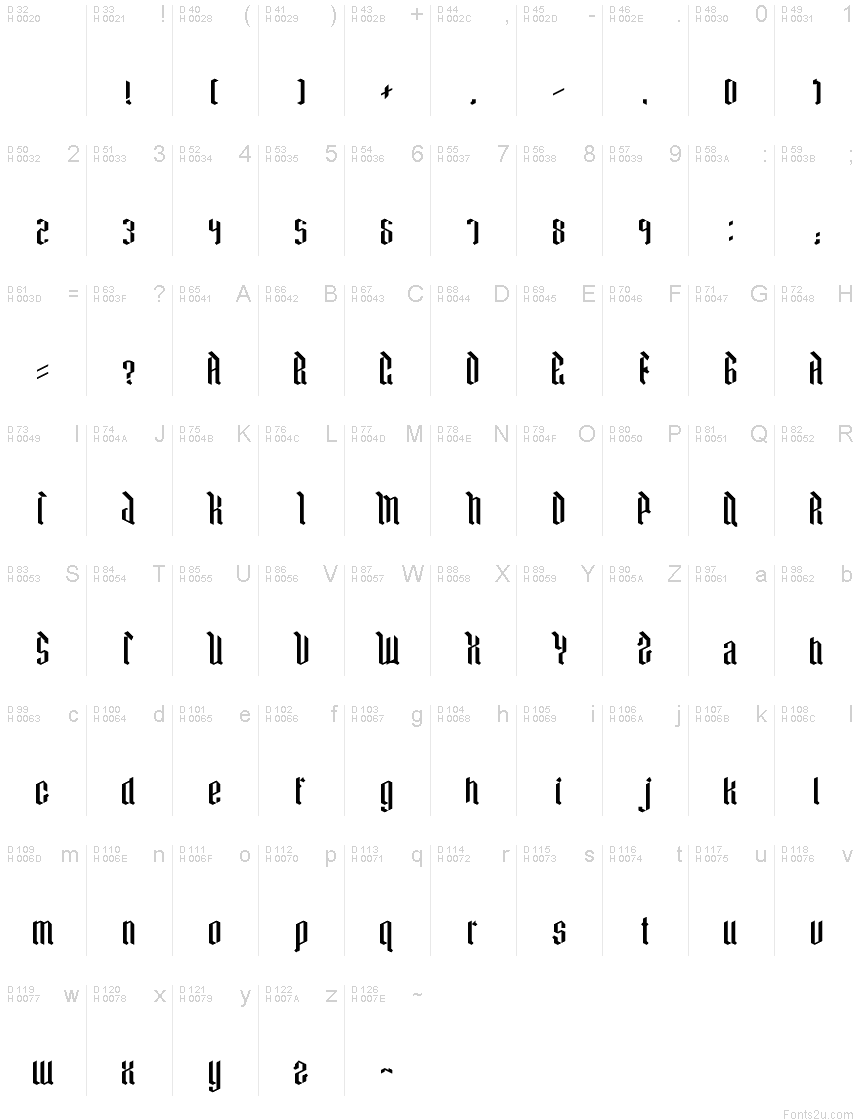
Corregidora Dominguez by rivaszarate of FSI FontShop International GmbH is a free medieval blackletter font with a severe, cut-paper silhouette. Narrow letters, sharp diagonal breaks, and alternating broad and hairline strokes give the design the look of hand-built Gothic lettering.
Historical and dark fantasy subjects suit book covers, game graphics, and event posters. Its angular forms can echo heraldic emblems, castle silhouettes, or woodcut illustration, allowing the type to become part of the imagery.